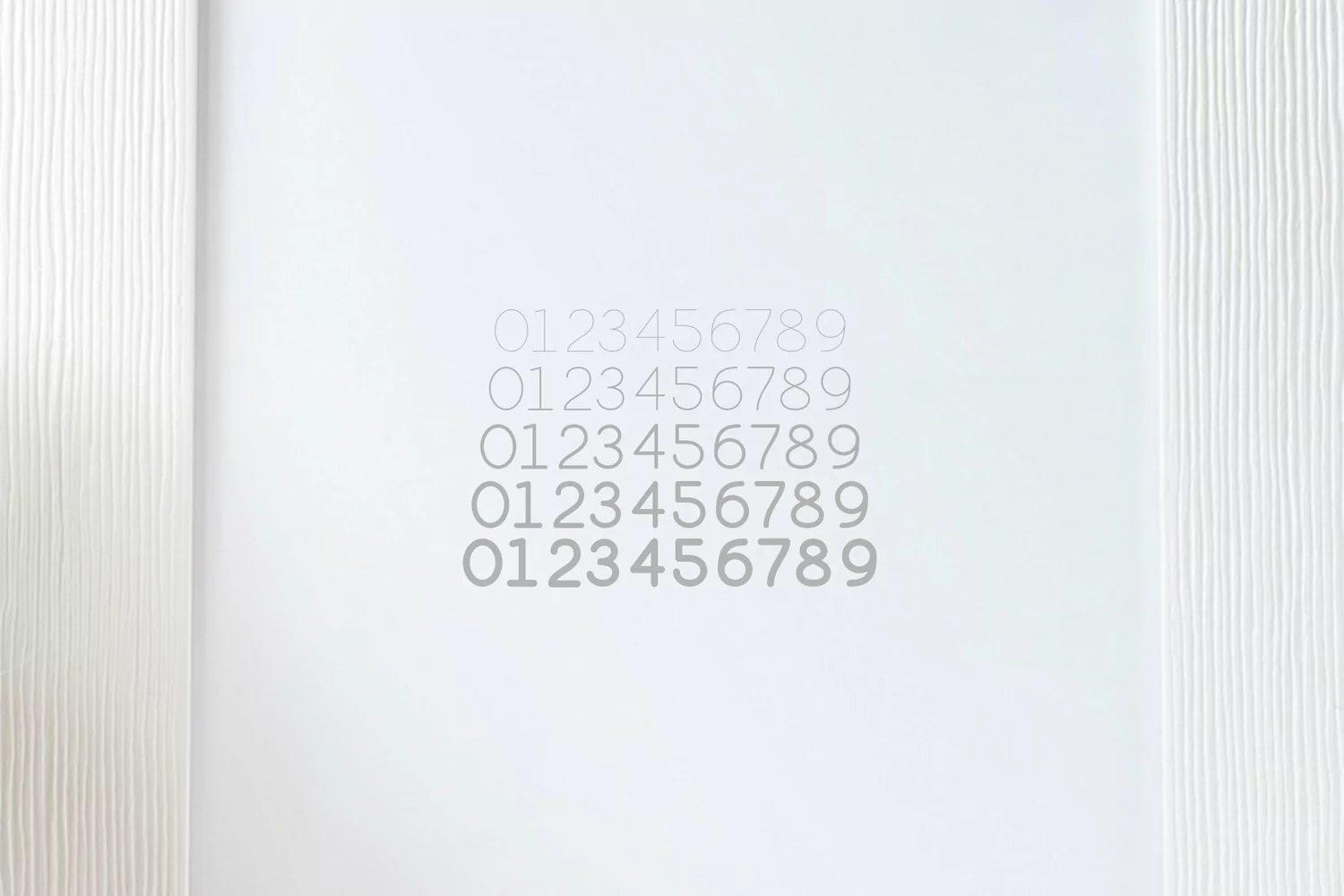
The Story of LunaHi, I'm luna. Thank you for visiting me. I hope you are satisfied with me. I am very happy if I can help your work. Whatever work you do I hope to be included. Whether the job is related to logos, magazines, designs, weddings, cards, invitations, and more.
Oh yes, Luna can also be used in multingual languages. So, you do not have to worry anymore if you wear me.